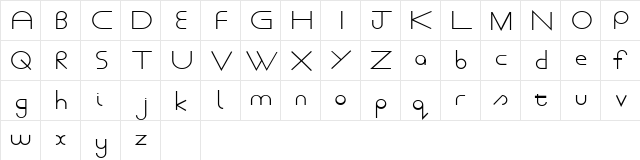
Powwow Regular
Design Context for Powwow Typeface
Powwow is a composed and adaptable typeface that performs quietly and consistently across a wide range of design contexts.
Pro Tip: Use Powwow in both headline and body roles to test its range before committing to a single application.